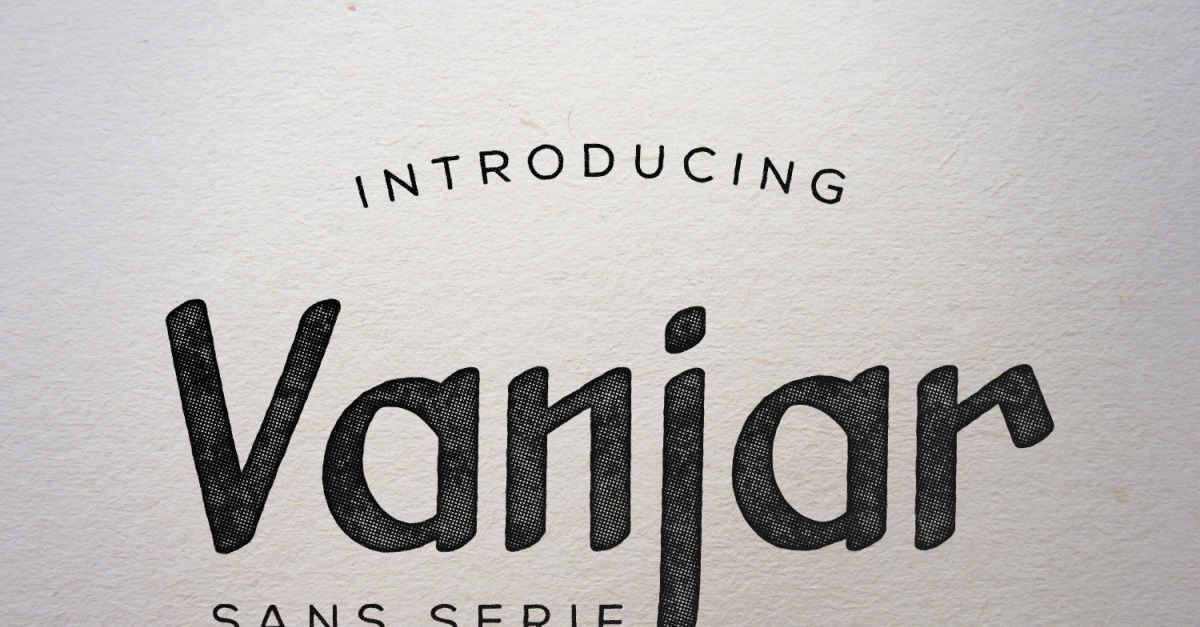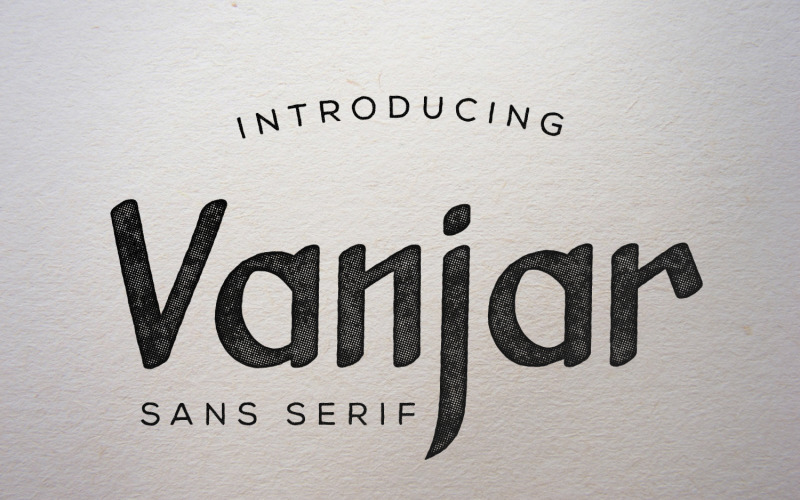
Vanjar - Sans Family Font
Vanjar is a multi-purpose sans serif, clean & elegant with a strong contemporary feel. Vanjar allow the font to display well at large or small sizes. Vanjar is very versatile and sophisticated, perfect for headlines, body copy, posters, on-screen and more. Vanjar also suitable for art, modern envelope lettering or book design, happening style like handdrawn design or watercolor design theme, craft design, any DIY project, book title, wedding font, pop vintage design, or any purpose to make our art/design project look pretty and trendy.
Features :
- Upper Case & Lowercase
- Standart Ligatures
- Numerals
- Punctuations (OpenType Standard)
- Accents (Multilingual Characters)